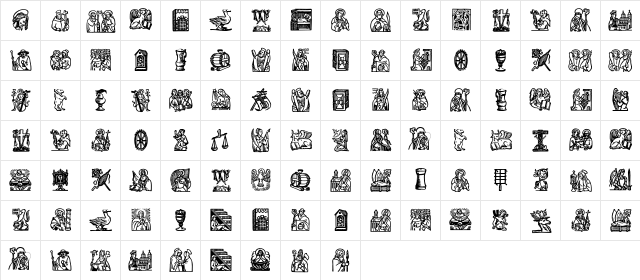
OldFarmersCalendarBats02 Regular Font Preview
OldFarmersCalendarBats02 Regular
Design Context for OldFarmersCalendarBats02 Typeface
OldFarmersCalendarBats02 is a composed and adaptable typeface that performs quietly and consistently across a wide range of design contexts.